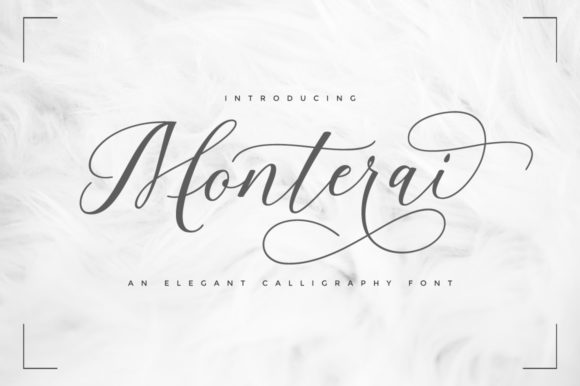
Prepare to be captivated by Monterai, an enchanting script font that exudes elegance and charm. Its graceful curves and delicate strokes bring a touch of romance and creativity to your designs. Whether you're creating wedding invitations, personalizing logos, or adding a unique flair to your social media posts, Monterai effortlessly transforms your words into works of art.
Immerse yourself in the world of passion and beauty as you explore the endless possibilities Monterai offers. Its versatile nature makes it the perfect choice for personalizing projects with artistic flair. Let your imagination run wild as you design eye-catching logos, stunning flyers, or heartfelt cards, knowing that every letter you type will be infused with Monterai's distinct charm.
Step into a realm of creativity and expression as you unveil the true power of Monterai. Its meticulously crafted characters and flowing lines elevate your designs to new heights. Showcase your unique style and captivate your audience with Monterai's alluring charm.
With Monterai at your creative disposal, you can unleash your inner artist and explore the boundless possibilities of your imagination. Let your designs blossom into masterpieces that leave a lasting impression.
Embark on a journey of typographic artistry with Monterai. Its remarkable ability to transform ordinary words into captivating expressions of art will leave you breathless.